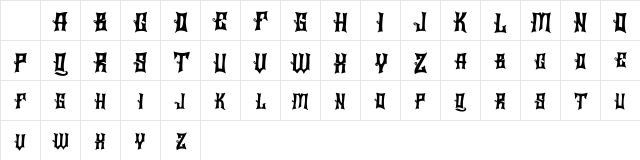
Complete Braier FREE Regular glyph index. Displaying only characters natively supported by Braier FREE Regular font.
Braier FREE is a composed and adaptable typeface that performs quietly and consistently across a wide range of design contexts.